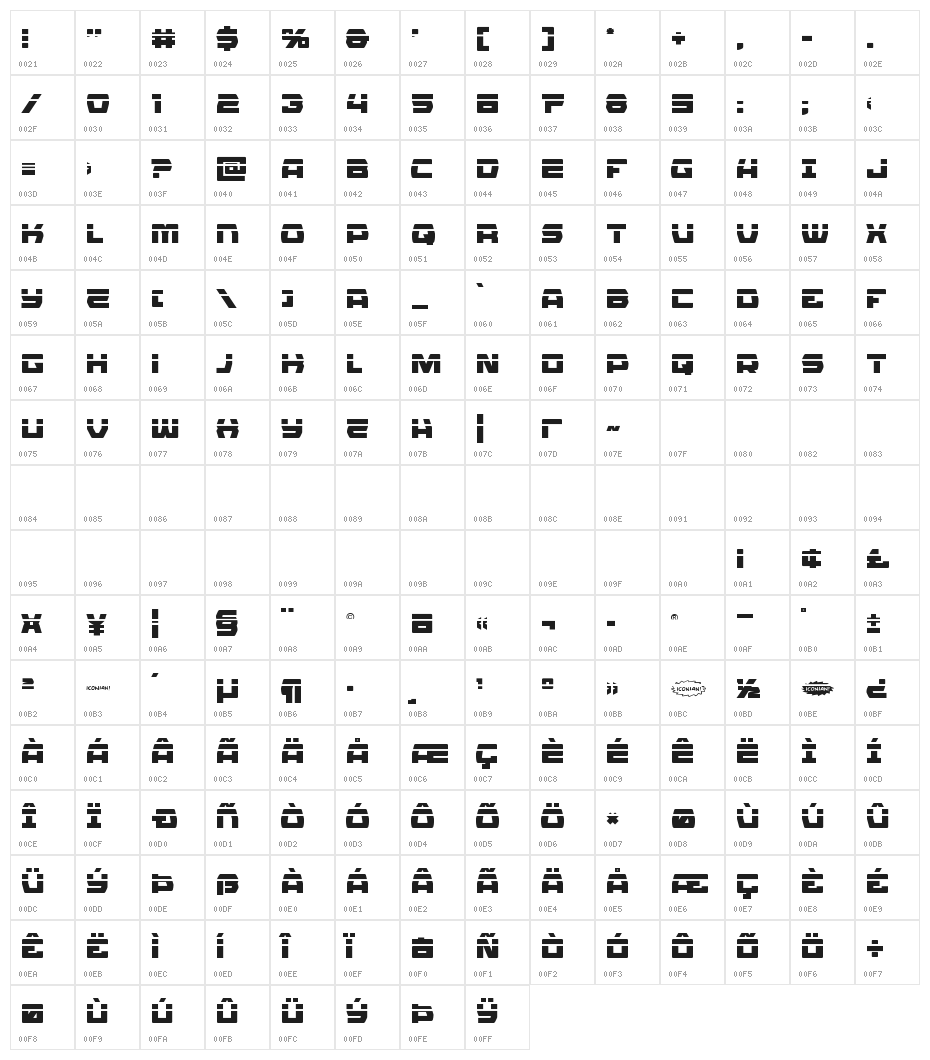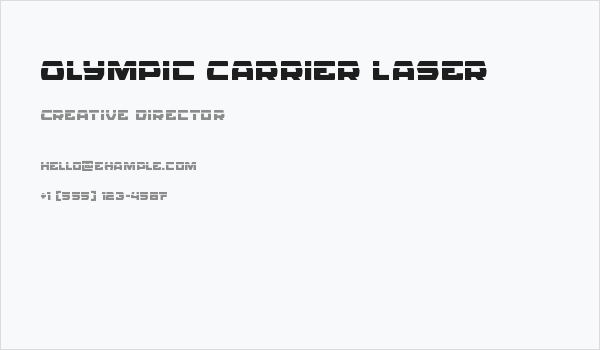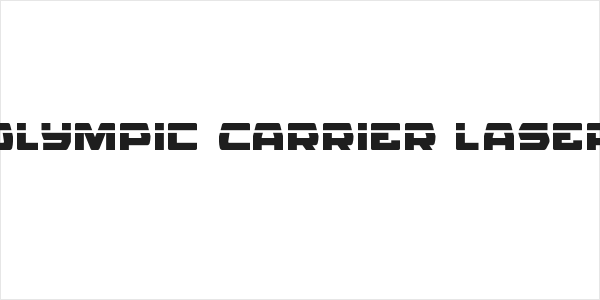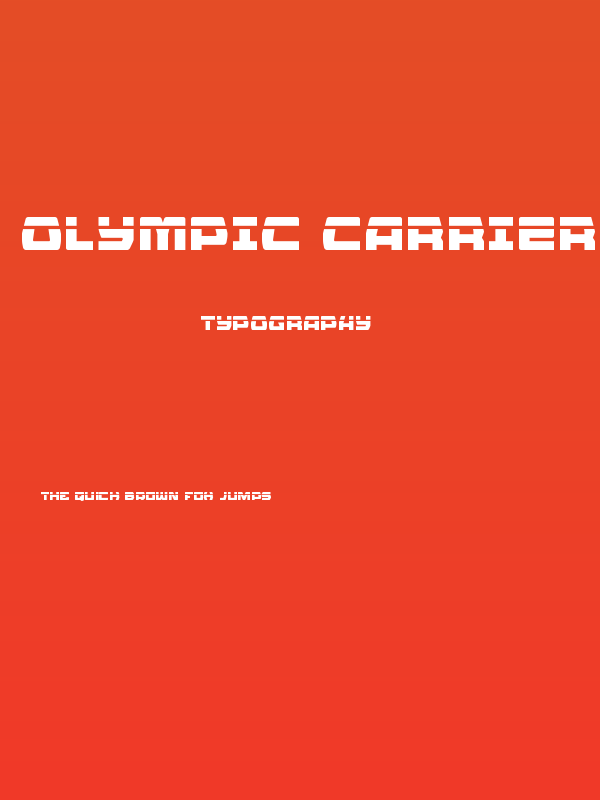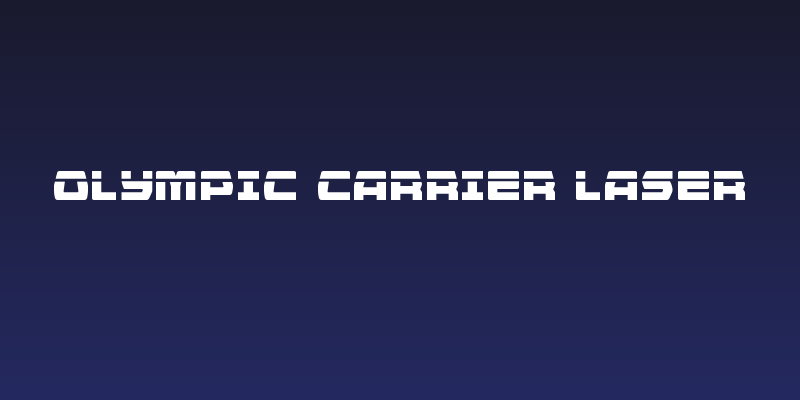
Olympic Carrier Laser Font
Olympic Carrier Laser Description
This font features a bold, futuristic design with a strong geometric structure. Each character is crafted with sharp angles and a blocky appearance, giving it a distinct, modern look. The uppercase letters are uniform in height, while the lowercase letters maintain a consistent style, ensuring readability. Numbers and special characters follow the same design principles, making them easily recognizable. The font's unique style is ideal for projects that require a technological or industrial aesthetic. Its boldness and distinctiveness make it suitable for attention-grabbing headlines or logos.
| Proposed Projects | Ideal for technology branding, sci-fi posters, video game titles, and industrial-themed designs. |